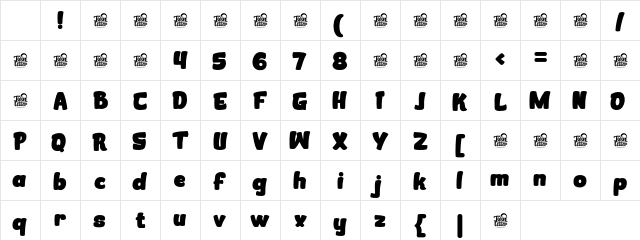
Complete SEDIFO Regular glyph index. Displaying only characters natively supported by SEDIFO Regular font.
SEDIFO is a composed and adaptable typeface that performs quietly and consistently across a wide range of design contexts.